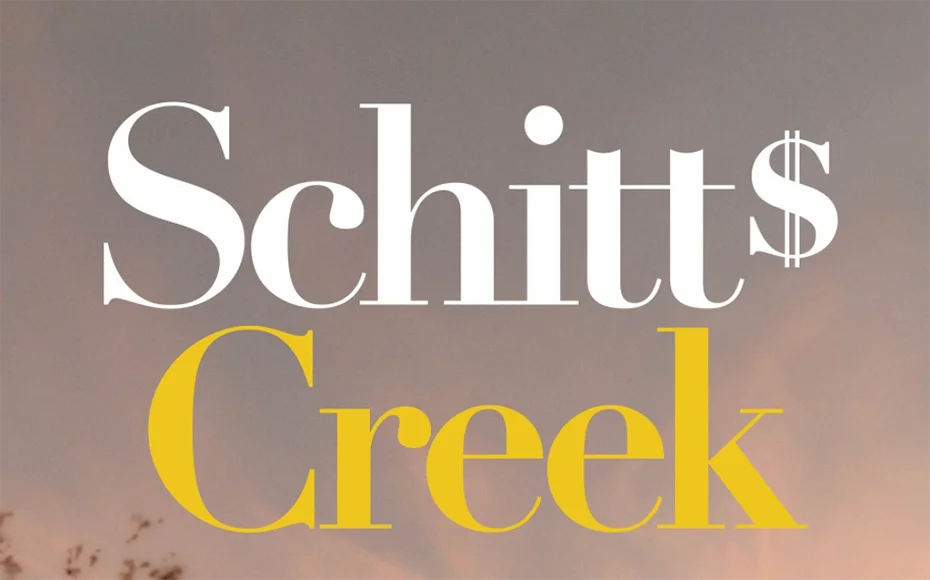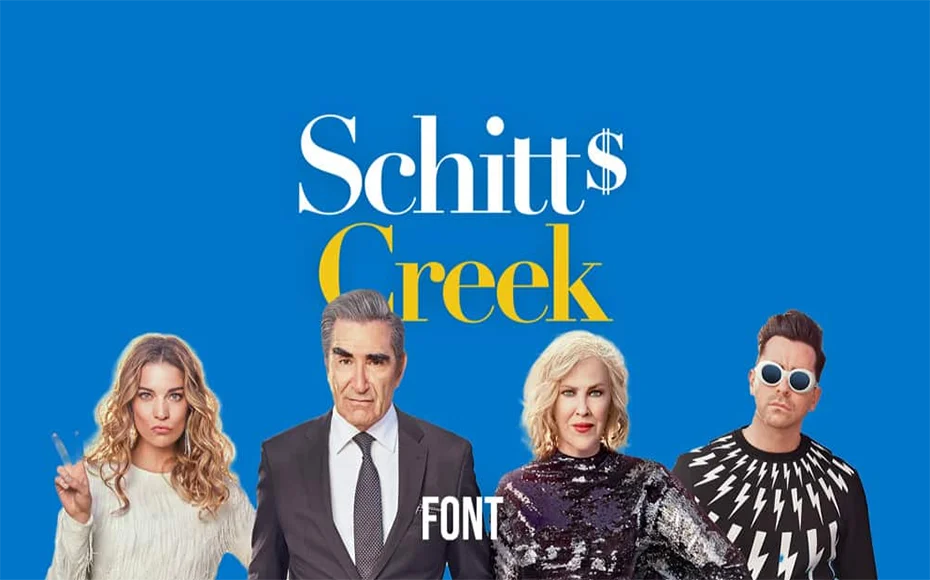
Introducing Schitts Creek Font! Schitt’s Creek is a Canadian television sitcom designed by Dan Levy and his father, Eugene Levy, which aired on CBC Television from 2015 to 2020.
The series was first sold to CBC Television in Canada and received final funding to launch production of Pop TV in the United States.
It consists of 80 episodes spread over six seasons. The series won various accolades, including two Extra Awards and 18 Canadian Screen Awards.
We’ve identified the font used for the Schitts Creek logo. The font used in the Schitts Creek title is Linotype Didot.
Let’s take a look at the appearance of this font and how it will look when you apply it to your design.
It works really well when used as a stylish text, logo design, banners ads, official cards, brochure making, posters designing, branding, printings on a T-Shirt, labels designs, advertisements, banners, and different other related approaches.
Linotype Didot is a Roman typeface designed by Adrian Frutiger and released by Linotype. It comes in 10 different versions. You could use it to create a design similar to Schitts Creek.